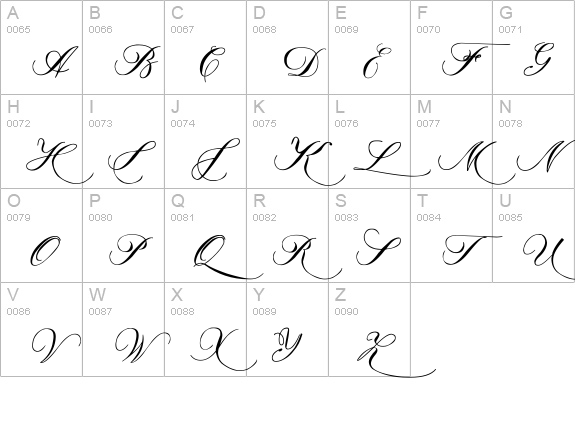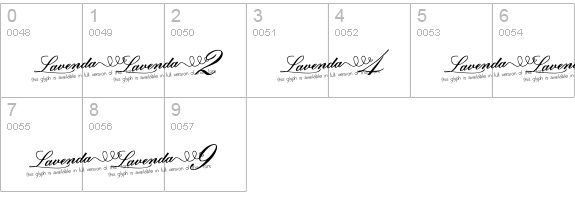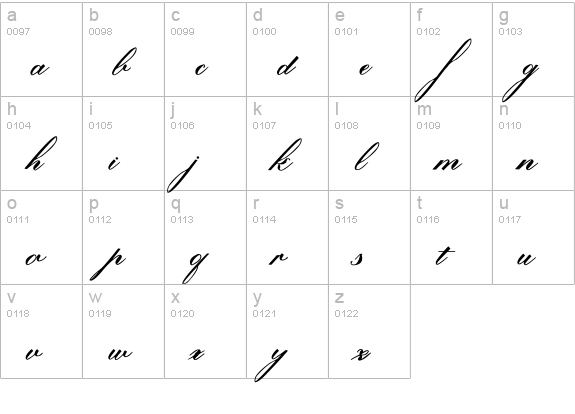
Lavenda Demo-FreeForPersonalUse Font Details
Lavenda Demo-FreeForPersonalUse font is a stunning display font that exudes elegance and sophistication. With its unique and intricate letterforms, this font is perfect for adding a touch of luxury to any design project. Whether you're creating wedding invitations, branding materials, or simply want to make a statement, Lavenda Demo-FreeForPersonalUse font is sure to impress. One of the best things about this font is that it is completely free for personal use. That's right, you can download and use Lavenda Demo-FreeForPersonalUse font without any cost. This means that you can add a touch of class to your personal projects, without breaking the bank. To get your hands on this beautiful font, simply head over to FontsMarket.com. There, you will find the Lavenda Demo-FreeForPersonalUse font available for free download. FontsMarket.com is a trusted source for high-quality fonts, and they make it easy for you to access this font and many others. So why wait? Download Lavenda Demo-FreeForPersonalUse font today and elevate your designs to new heights. Its exquisite details and free availability make it a must-have for any design enthusiast. Whether you're a professional designer or just starting out, this font will surely make a lasting impression.